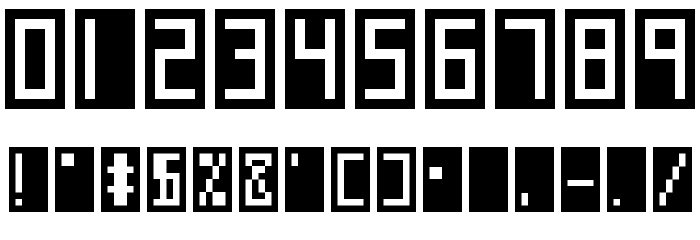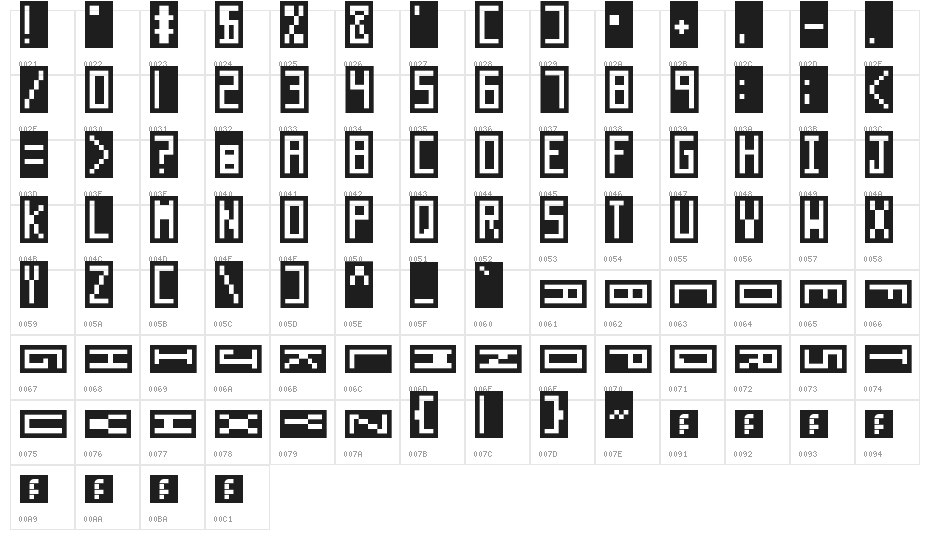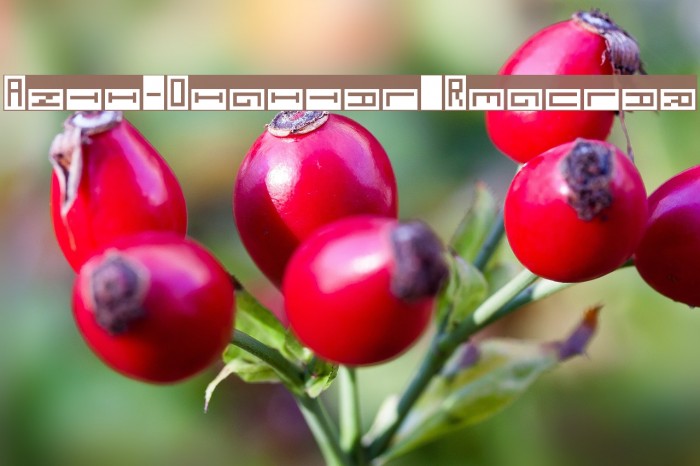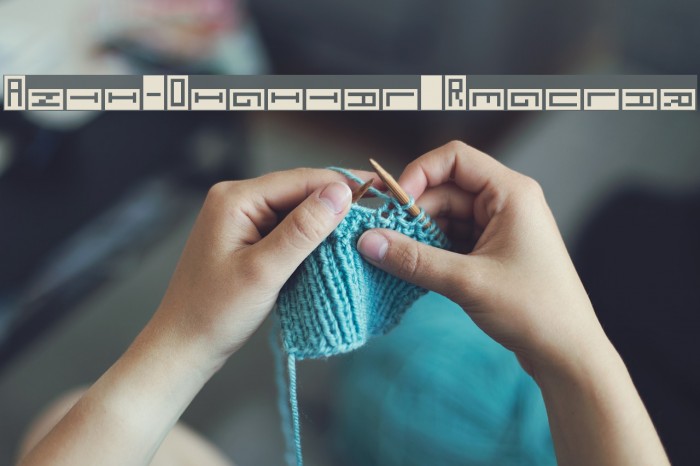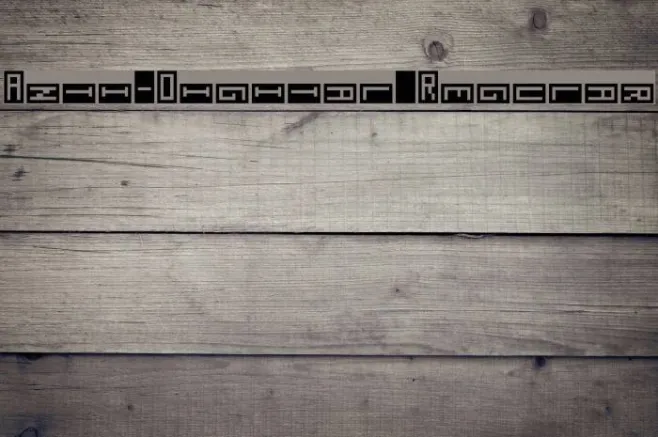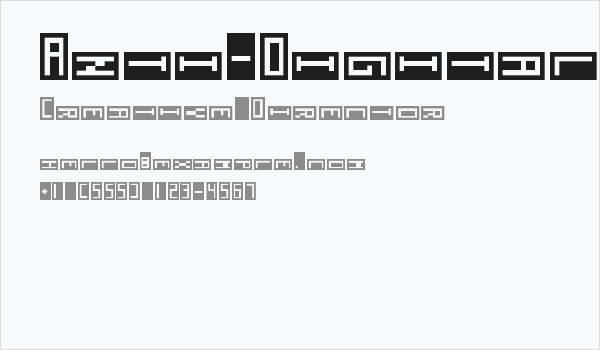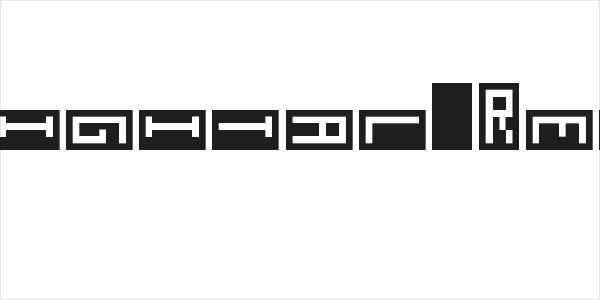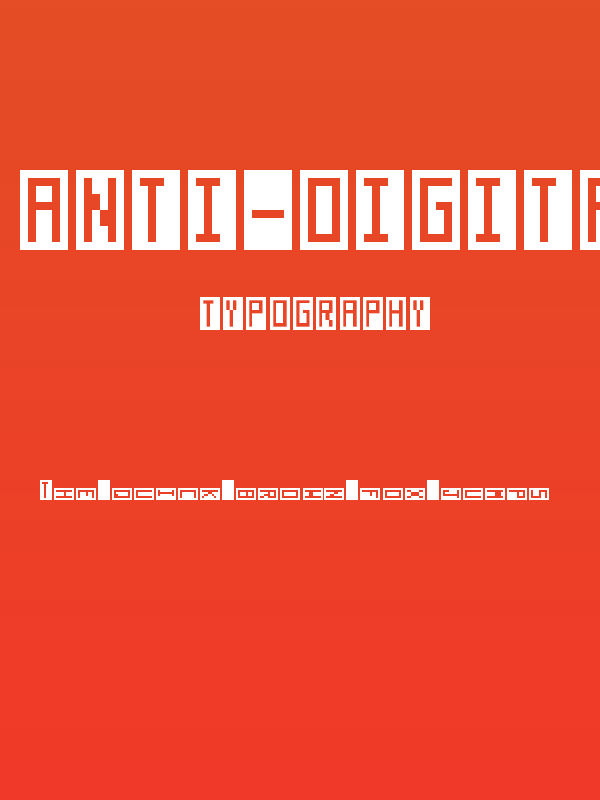
Anti-Digital Regular Font
This font features a bold, geometric style with a digital, pixelated appearance. Each character is enclosed within a rectangular frame, giving it a structured and uniform look. The design is reminiscent of early digital displays, with a blocky, grid-like structure that emphasizes straight lines and right angles. The uppercase and lowercase letters share a similar aesthetic, maintaining consistency across the alphabet. Numbers and special characters follow the same design principles, ensuring a cohesive visual identity. The font's distinct style makes it ideal for projects that require a retro or tech-inspired theme.
| Proposed Projects | Ideal for retro-themed designs, tech-related branding, video game graphics, and digital art projects. |